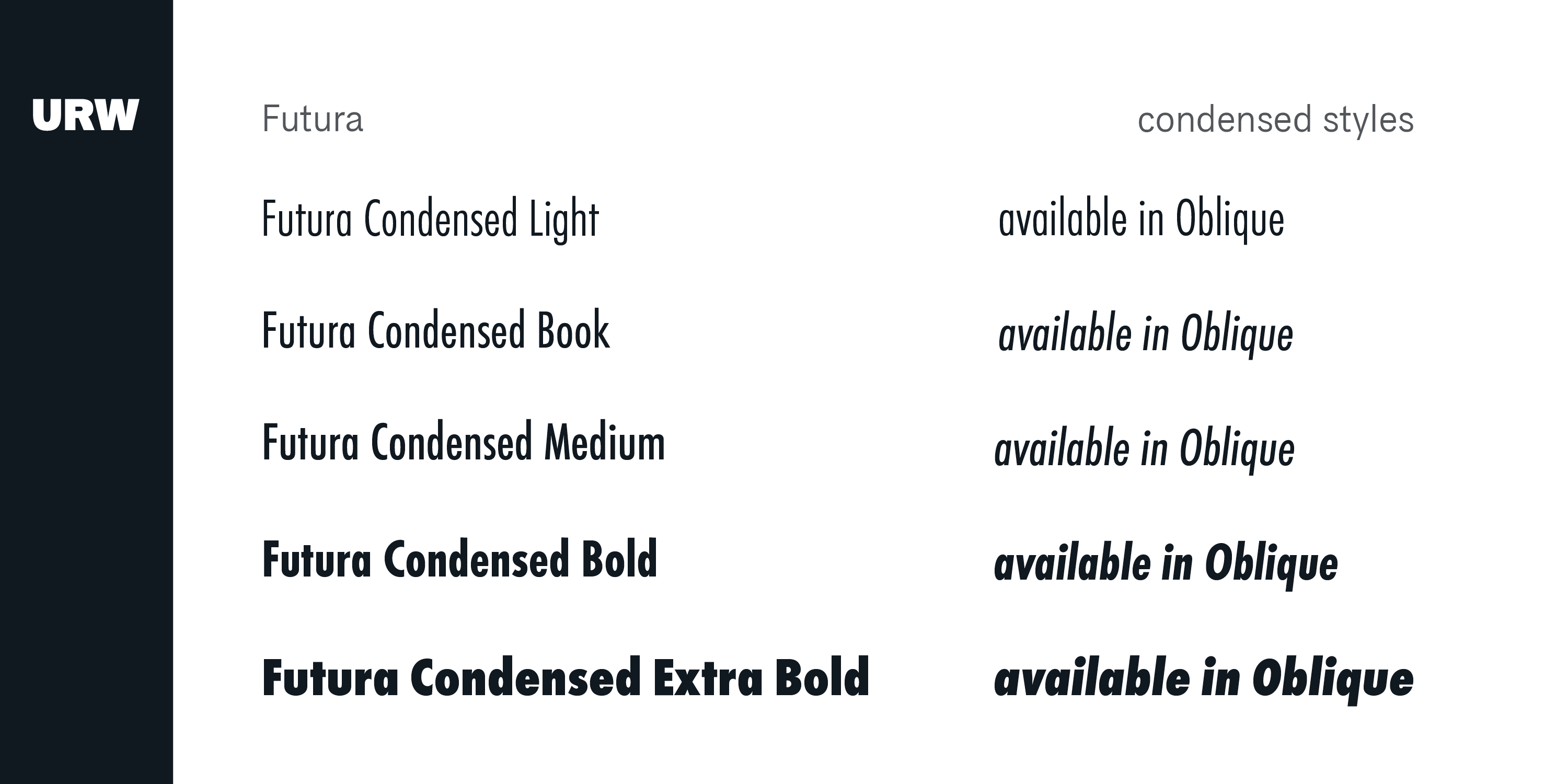
Experience the timeless geometry of Futura Font Free Download, the iconic Bauhaus-inspired typeface that has defined modernist design since 1927. Paul Renner's masterpiece remains the gold standard of geometric sans-serifs, offering perfect circles, triangles, and squares in letterform perfection.
Why Futura Remains Essential
1. Pure Geometric Precision
Perfect circular "O" and triangular "A"
Consistent stroke weights
Minimalist Bauhaus aesthetic
2. Enduring Design Applications
Masterfully crafted for:
Space-age branding (used on Moon plaques)
Cinema title sequences (Kubrick films)
Architectural signage
Infographic design
Luxury fashion branding
3. Technical Perfection
Multiple weights from Light to Extra Bold
True italic variants (not slanted)
Extensive character set
Crisp rendering at all sizes
Professional Implementation
Futura Font Free Download excels in:
Corporate identity systems
Wayfinding and environmental graphics
Editorial design
Product packaging
Exhibition displays
Create bold, clean typographic statements
Designer Tip: Use all-caps with tight tracking for authentic modernist impact.
Futura Font Free Download – The definitive geometric sans for nearly a century!
Key Advantages:
Timeless aesthetic never goes out of style
Perfect for both display and text settings
Universally recognized professional quality
Why It's Legendary:
Futura's influence appears everywhere from NASA spacecraft to Vogue magazine, proving its enduring versatility across industries and decades.
Perfect Pairing:
Combine with a classic serif like Bodoni for striking modernist contrast.
Pro Insight:
The Medium weight works exceptionally well for wayfinding systems, offering clarity at various distances and angles.
Includes alternate character variants
Special scientific symbols
Optimized for laser cutting templates
Historical Note:
Originally released by the Bauer Type Foundry, Futura was one of the first fully geometric typefaces, influencing nearly all subsequent sans-serif designs.
Expert Recommendation:
Use Futura Bold Condensed for impactful headlines in space-constrained layouts without sacrificing readability.
Technical Superiority:
The font's mathematical precision makes it ideal for technical drawings, CAD renderings, and data visualization.
Warning:
This font may cause heightened sensitivity to poorly kerned type and a desire to redesign everything with Swiss precision. Use for maximum modernist impact!